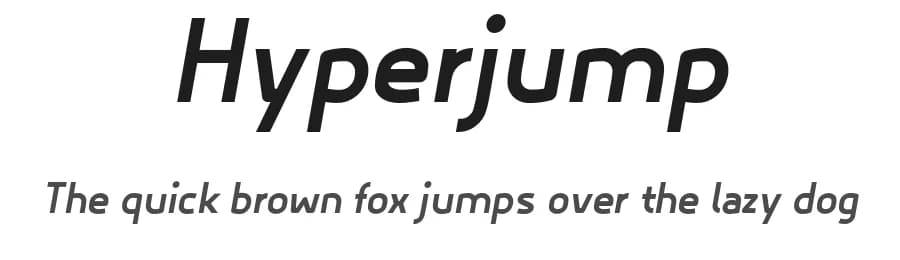
About Hyperjump Font
Hyperjump is a sans-serif font designed by Toufique Islam. It includes 234 glyphs, a extrabold weight, OTF (CFF) format, and 217 languages. Hyperjump is free to download; check the license details on this page before commercial use. Sans-serif fonts like Hyperjump work best for clean body text, user interfaces, branding, and modern layouts.
Hyperjump Font is a versatile sans-serif font that works for both headings and body text. Pair it with a contrasting serif or slab serif font to add visual interest and a clear distinction between titles and body copy.
Hyperjump Font
Hyperjump Font is a sans serif typeface by Toufique Islam, ideal for logos, invitations, branding, and creative projects.